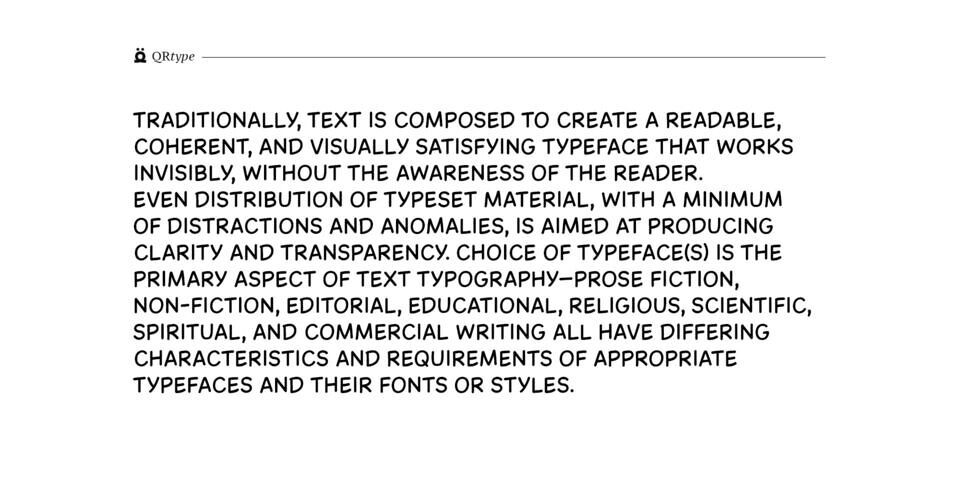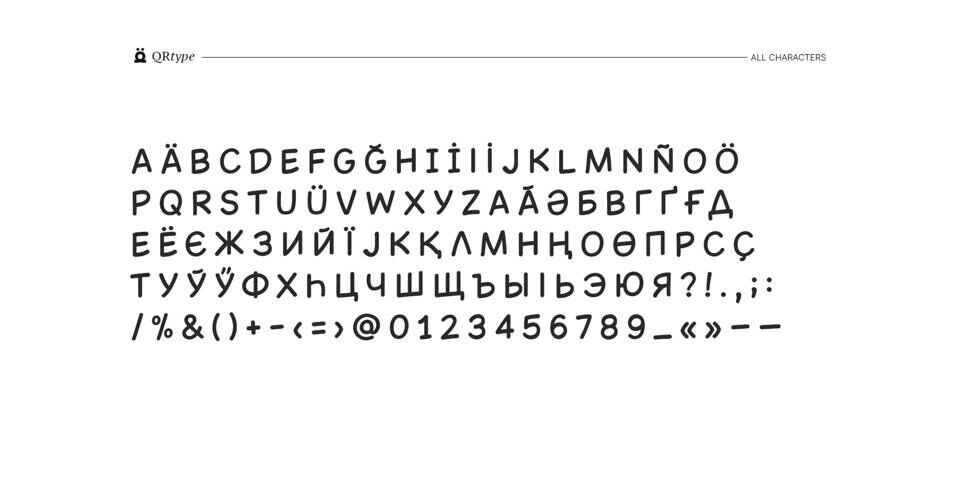
QR Comic is a free comic book font designed by Abay Emes. This charming and legible typeface captures the friendly, handcrafted feel of classic comics with its clean, rounded letterforms.
It’s an all-caps font that’s perfect for headlines, posters, and, of course, comic strips. The extensive character set includes full alphabet support, numerals, symbols, and various accented and Cyrillic characters, making it a versatile choice for projects that need a fun, approachable, and personal touch.